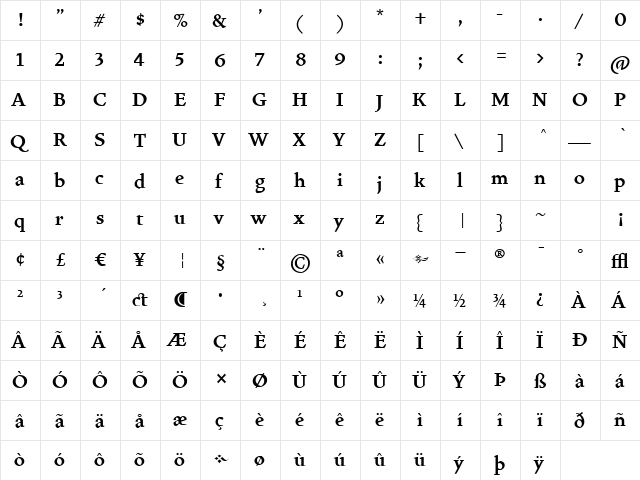
VendettaBoldLiningFigs Bold
| Foundry | Emigre |
| Designer | John Downer |
Design Context for VendettaBoldLiningFigs Typeface
VendettaBoldLiningFigs offers clean, dependable letterforms without strong stylistic allegiance, making it a practical choice for designers who need flexibility. The heavy weight commands attention and anchors typographic hierarchies.